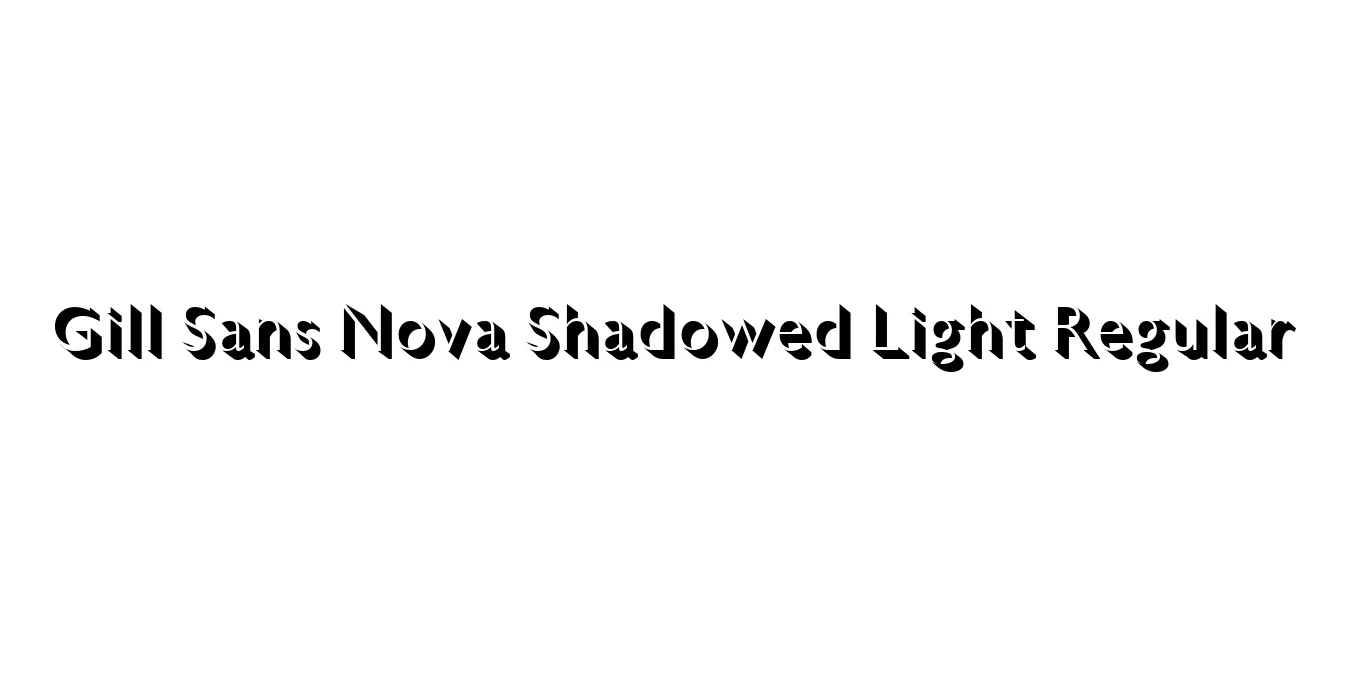
Gill Sans Nova Shadowed Light Regular
Designed by Eric Gill, George Ryan (Monotype)
| Category | Sans Serif / Display |
| Designer | Eric Gill, George Ryan (Monotype) |
Gill Sans Nova Shadowed Light Regular is a sophisticated expansion of the timeless 1928 masterpiece by Eric Gill. Released as part of the 2015 Gill Sans Nova family, this variant was meticulously digitized and expanded by George Ryan at Monotype. It maintains the distinct humanistic proportions and British character of the original typeface while introducing a three-dimensional shadowed effect that adds a layer of depth and architectural elegance to the light-weight letterforms.
This typeface represents a bridge between Mid-Century modernism and contemporary digital design. The shadowed light weight is particularly effective for display purposes, offering a sculptural quality that feels both classic and avant-garde. As part of the Nova series, it features an expanded character set and modern OpenType support, making it a versatile tool for designers who wish to evoke a sense of heritage without sacrificing modern functionality.
Gill Sans Nova Shadowed Light Regular Best Uses
Ideal for sophisticated magazine mastheads and high-end layout titles.
Excellent for luxury fashion or architectural firm visual identities.
Perfect for modern classics or historical non-fiction titles.
Creates eye-catching headlines for cultural and artistic event marketing.